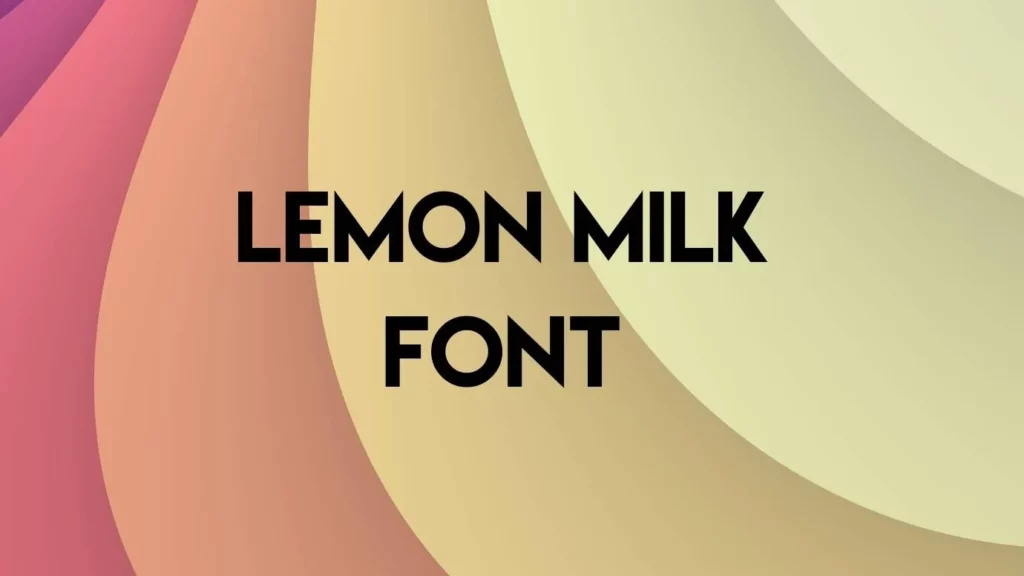
Lemon Milk Font is the alluring, sharp, and high contrast typeface that is great for every field of design. The typeface family has many styles and weights that are much worthy of our both screen and display-based designs. It is designed by Marsnev™ and provided us the typeface styles as donationware.
The creator of the Lemon Milk Font said that if you want more styles and weight then you can buy its pro version. While the typeface is specified in the sans serif family due to its basic and top-notch letters and glyphs.
You can only use the uppercase letters in the donationware version, while you can utilize its lowercase letters by purchasing its pro version from its creator. the typeface style has a pairing personality with PT Sans Font which has somewhat the same characteristics.
The typeface family has many styles and weights that are worthy of our both screen and display-based designs. You can analyze the Jost Font that is available in Google fonts.